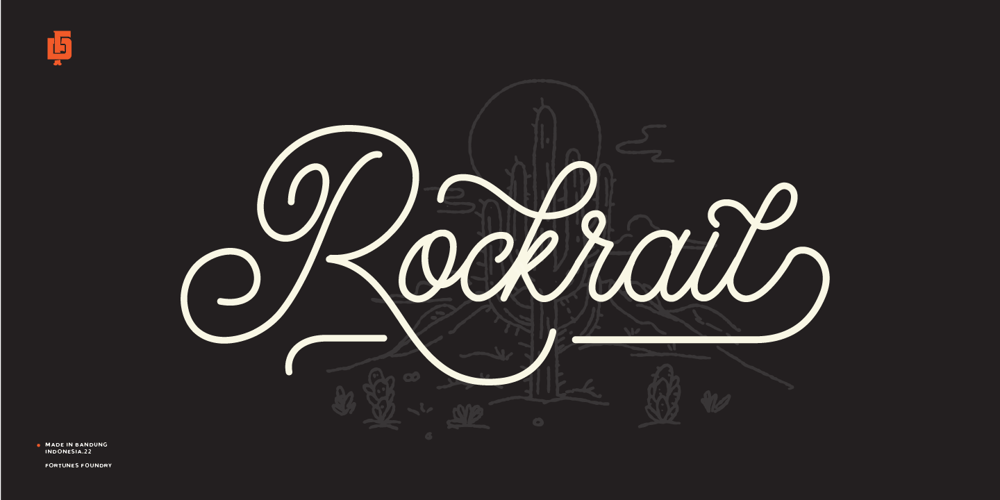
Fd Rockrails
Fd Rockrails font
Fd Rockrails Font Family was designed by Ramandhani Nugraha and published by Fortunes Co. Fd Rockrails contains 2 styles and family package options. Rocktrail Script is a monoline vintage styled and delicate script font. It is perfect for any branding project such as logos, t-shirt printing, creative products, and more. It will look extraordinary in a variety of contexts.